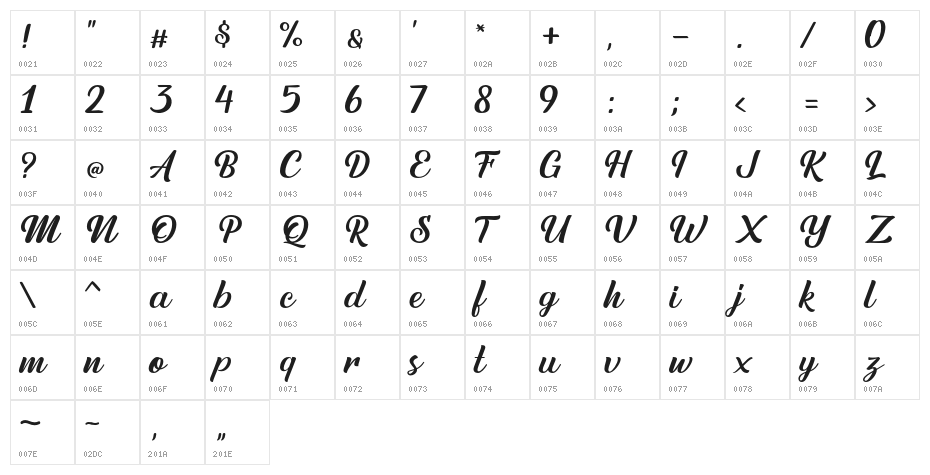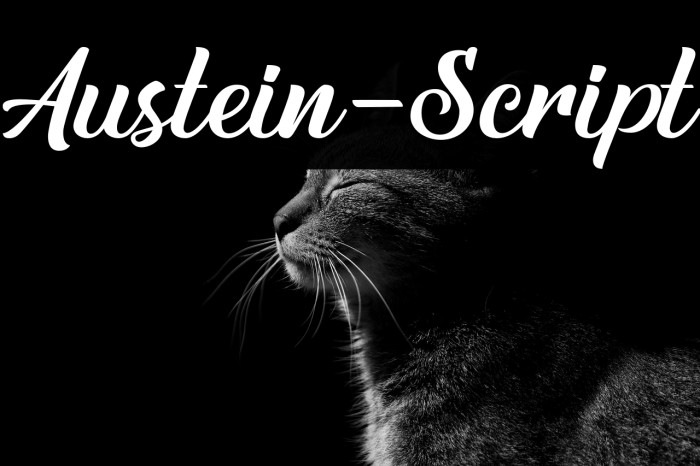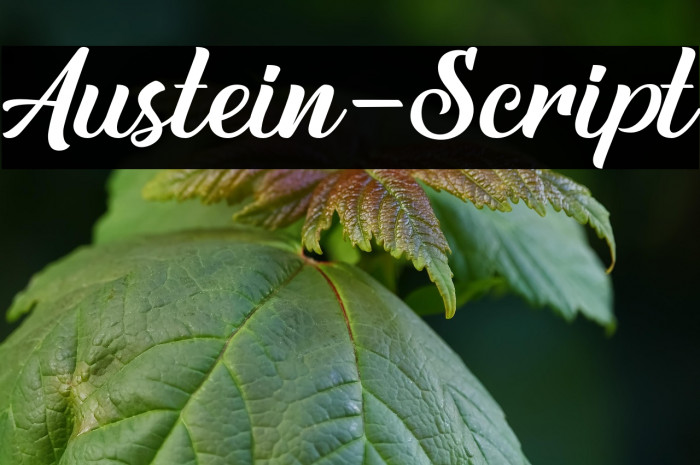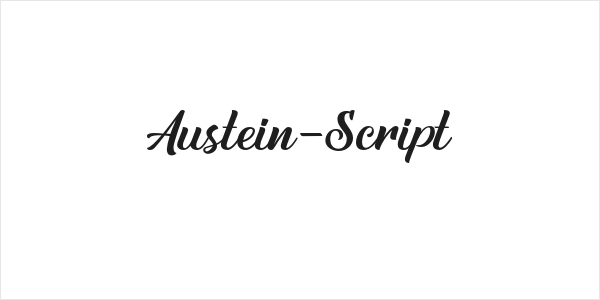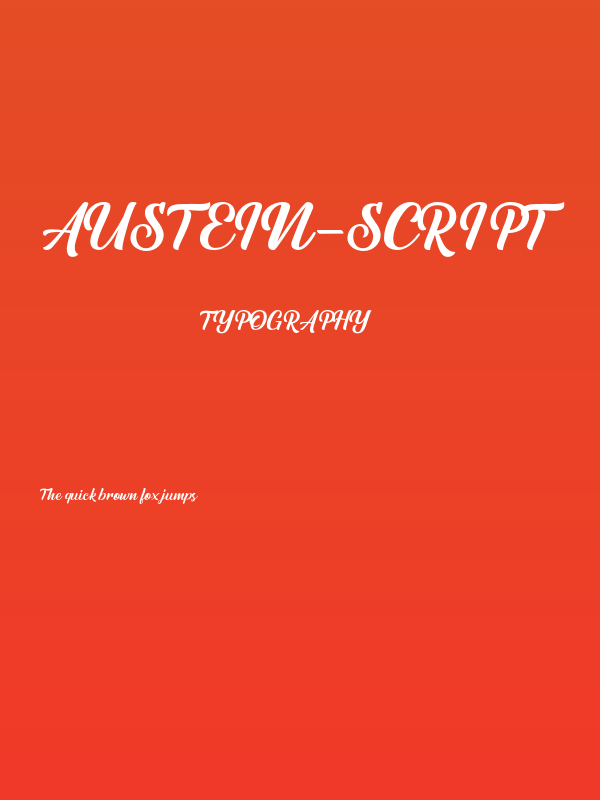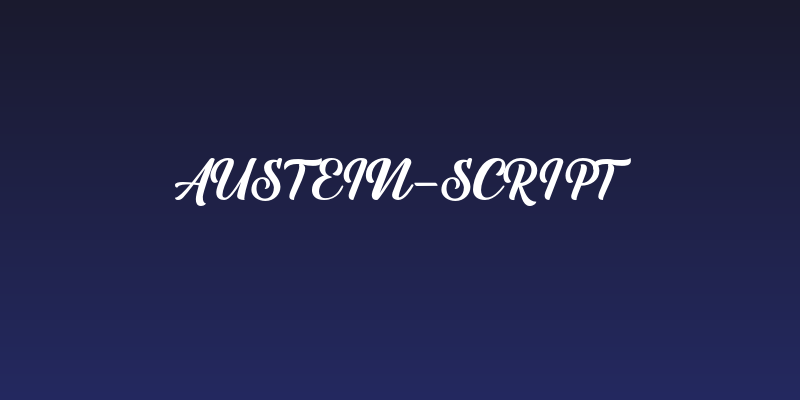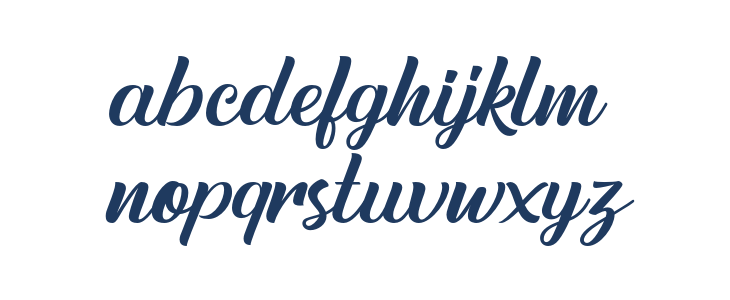
Austein-Script Font
Austein-Script Description
This font features a flowing, cursive style that exudes elegance and sophistication. The letters are interconnected, creating a seamless and fluid appearance. The uppercase characters are bold and prominent, while the lowercase letters maintain a consistent slant, enhancing the script's dynamic nature. The numerals are equally stylized, maintaining the overall aesthetic of the font. Special characters are designed to match the script's elegant flow, making it suitable for decorative purposes. The font's high contrast in stroke thickness adds to its dramatic and eye-catching appeal.
| Proposed Projects | Ideal for wedding invitations, elegant branding, greeting cards, and decorative signage. |